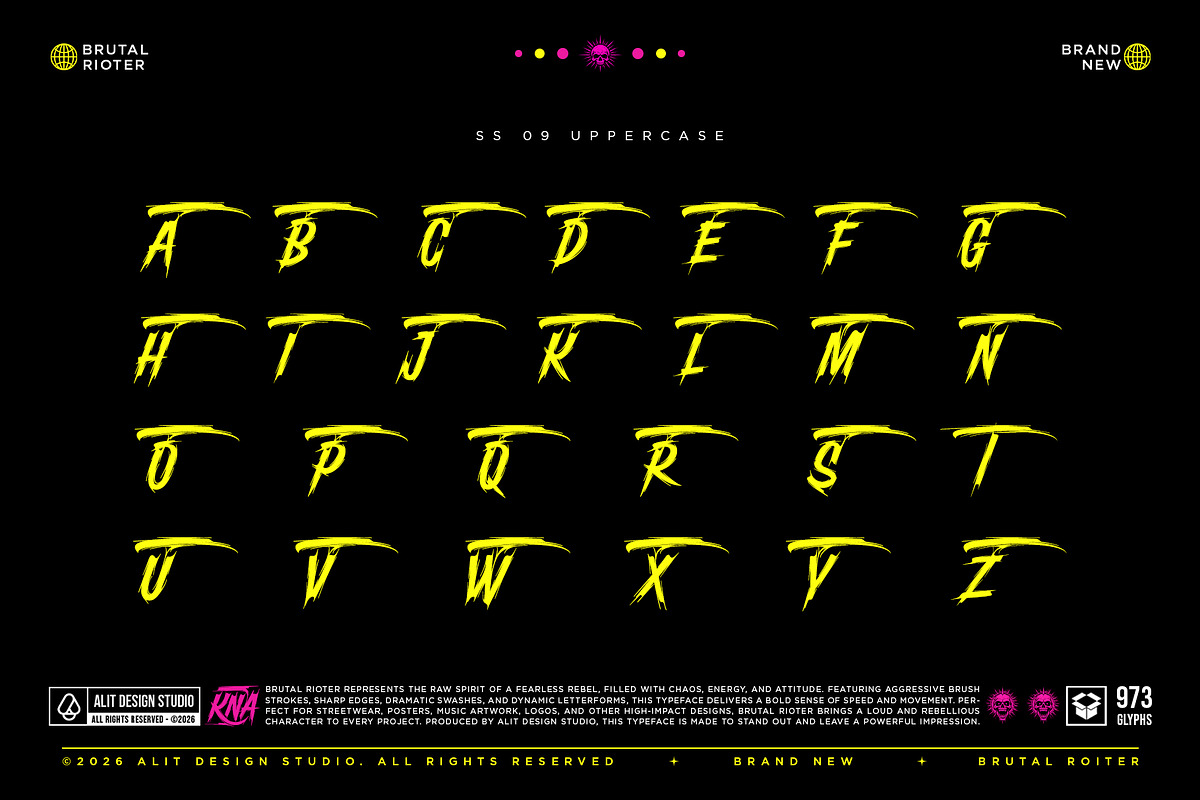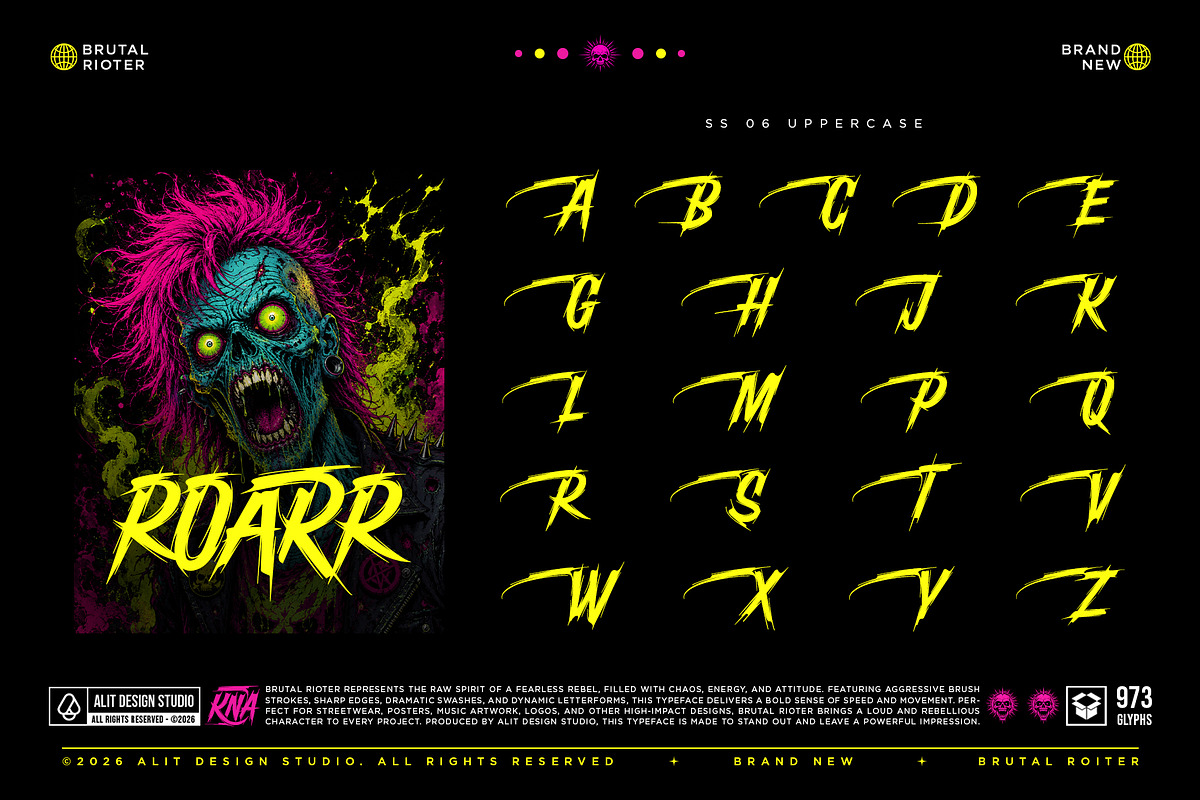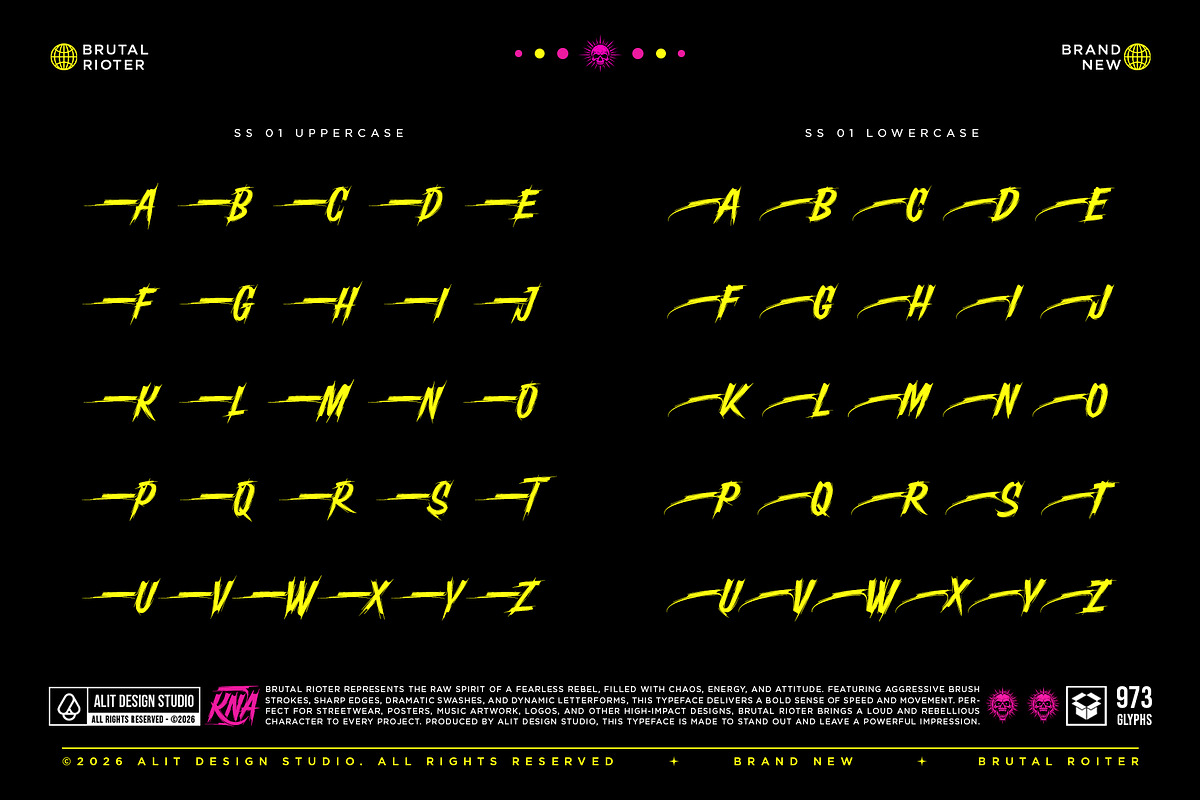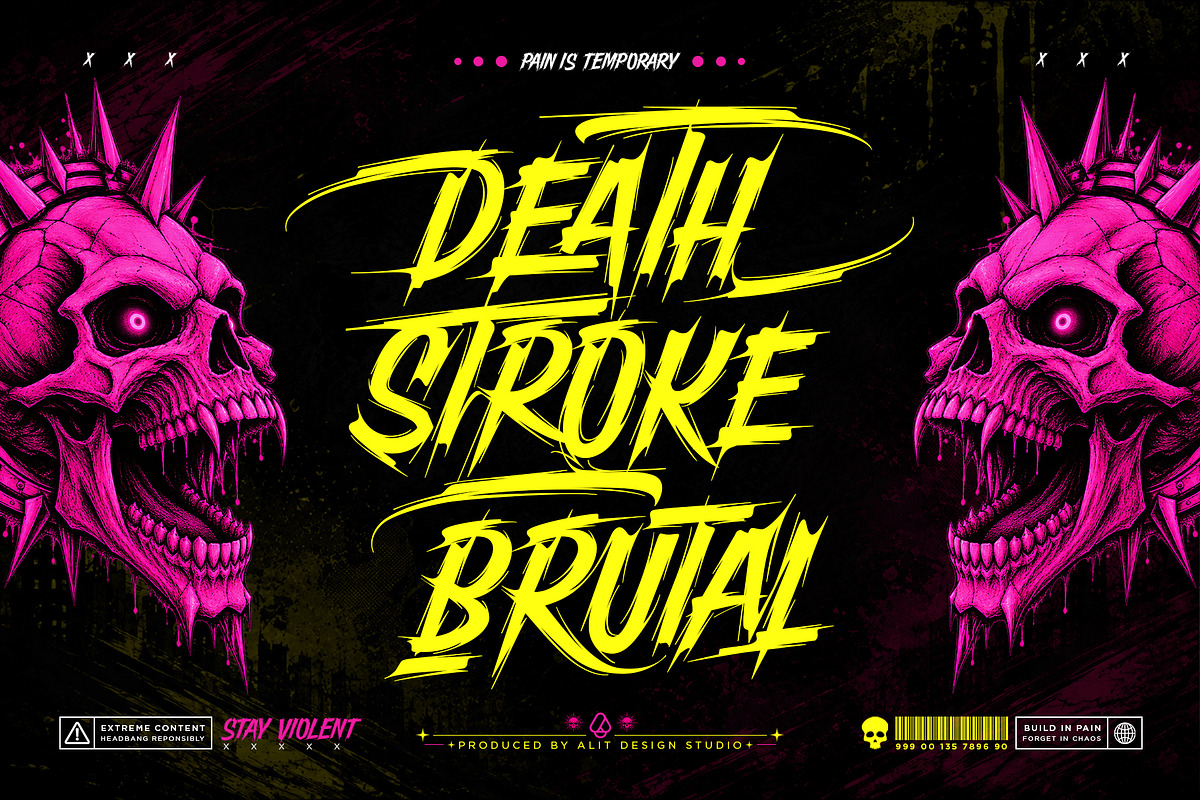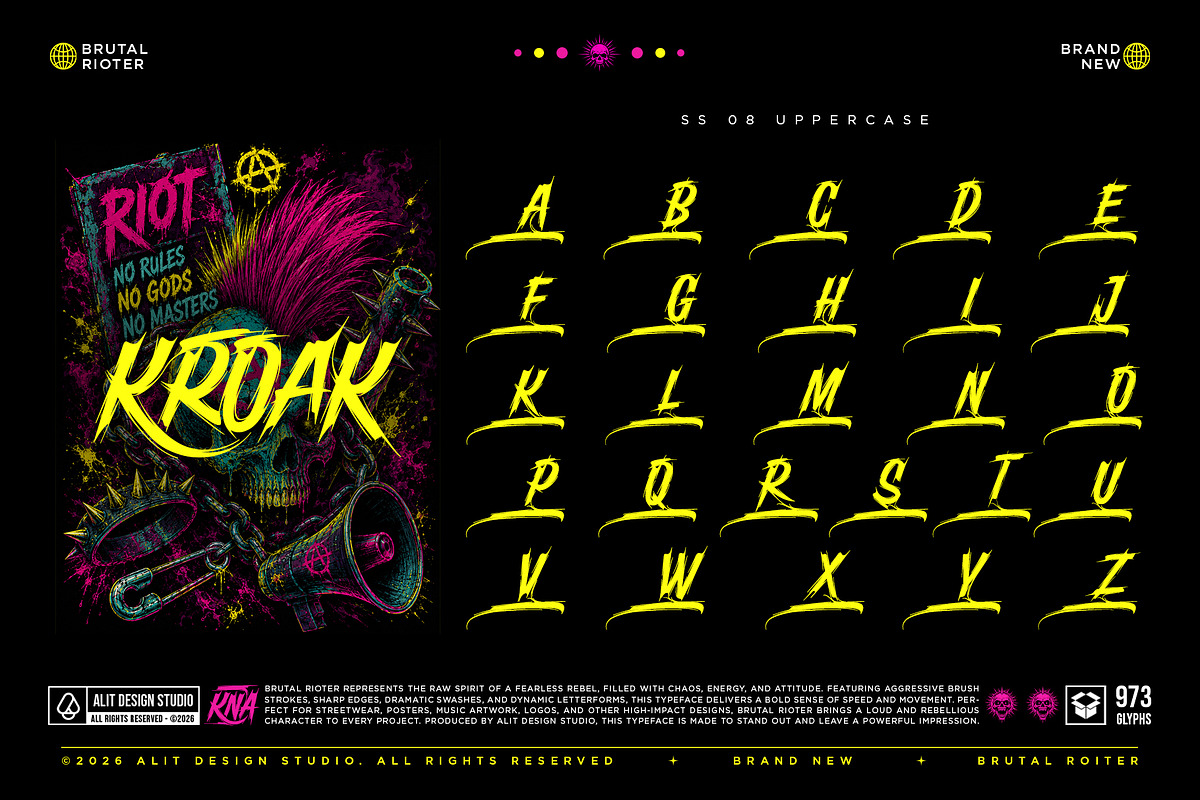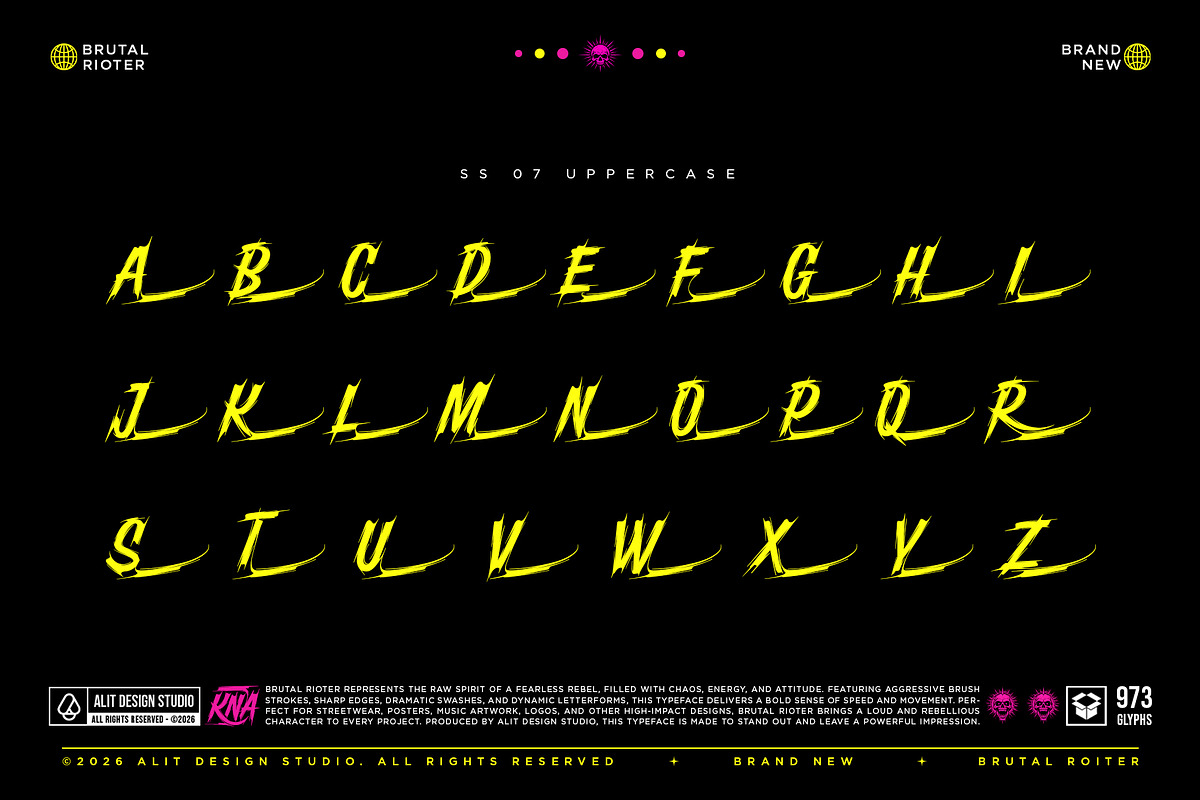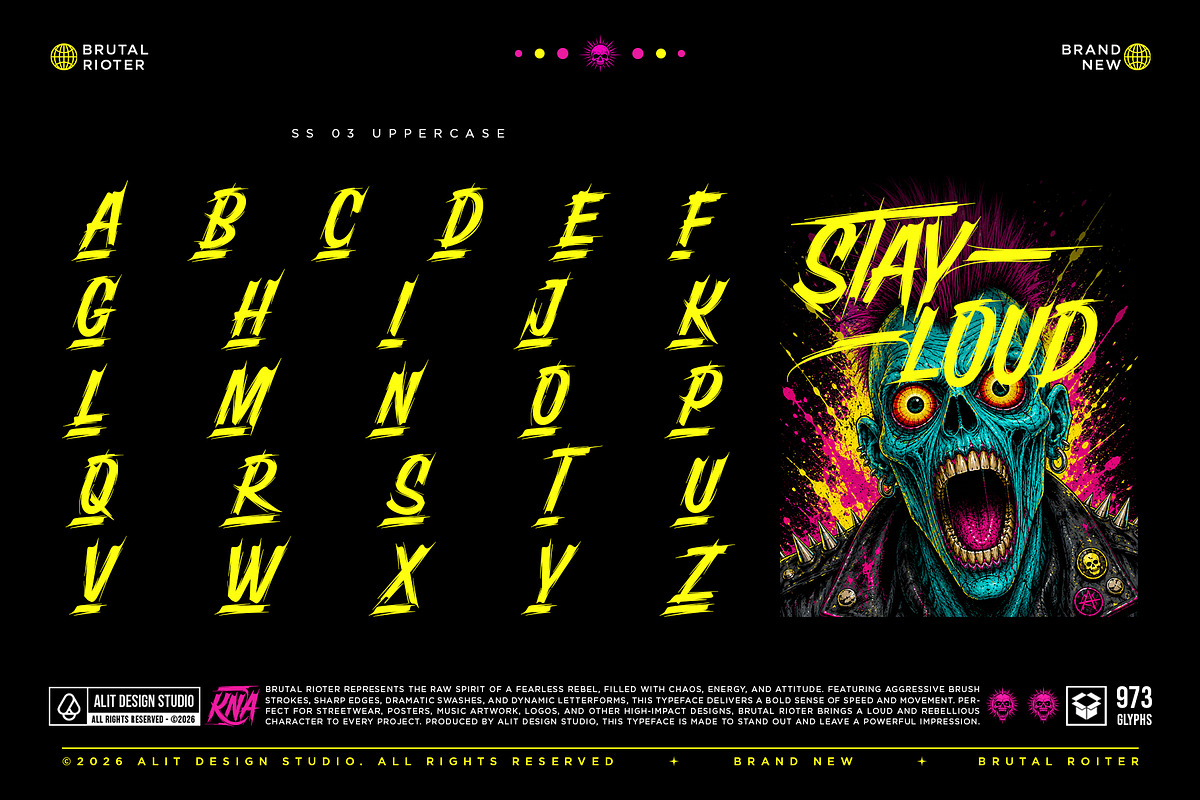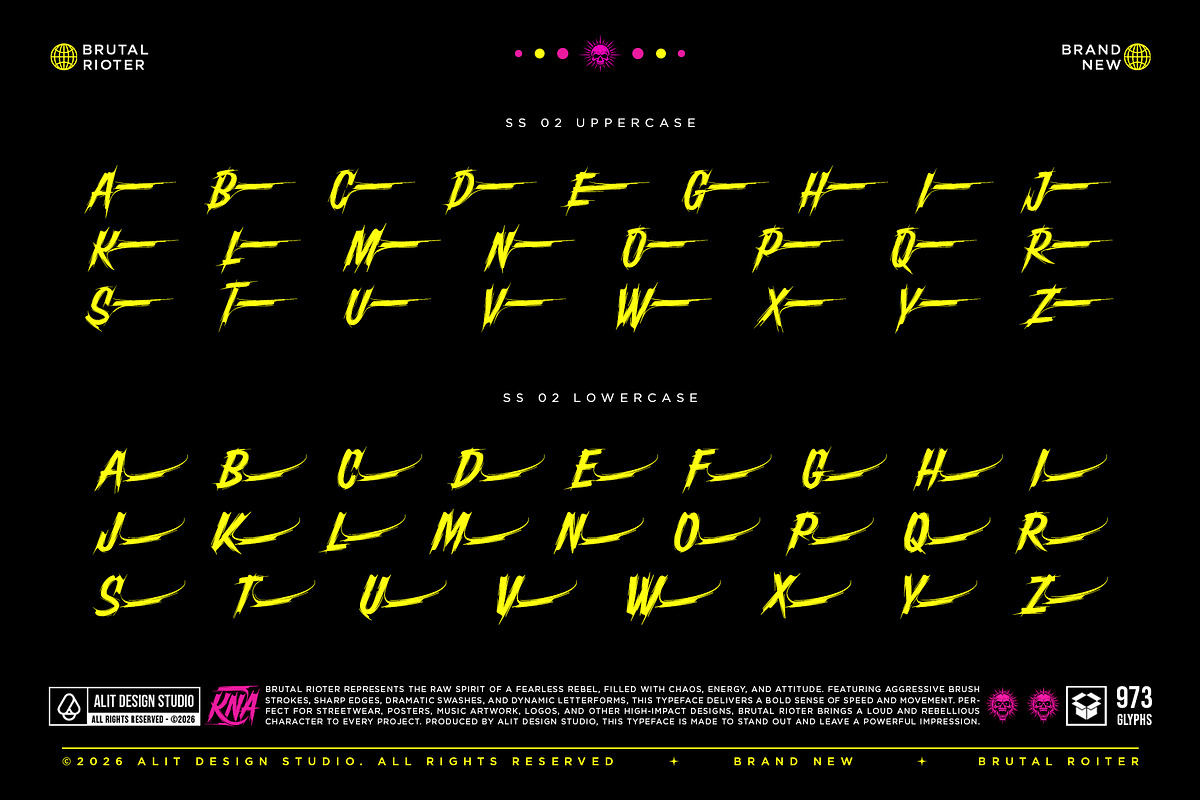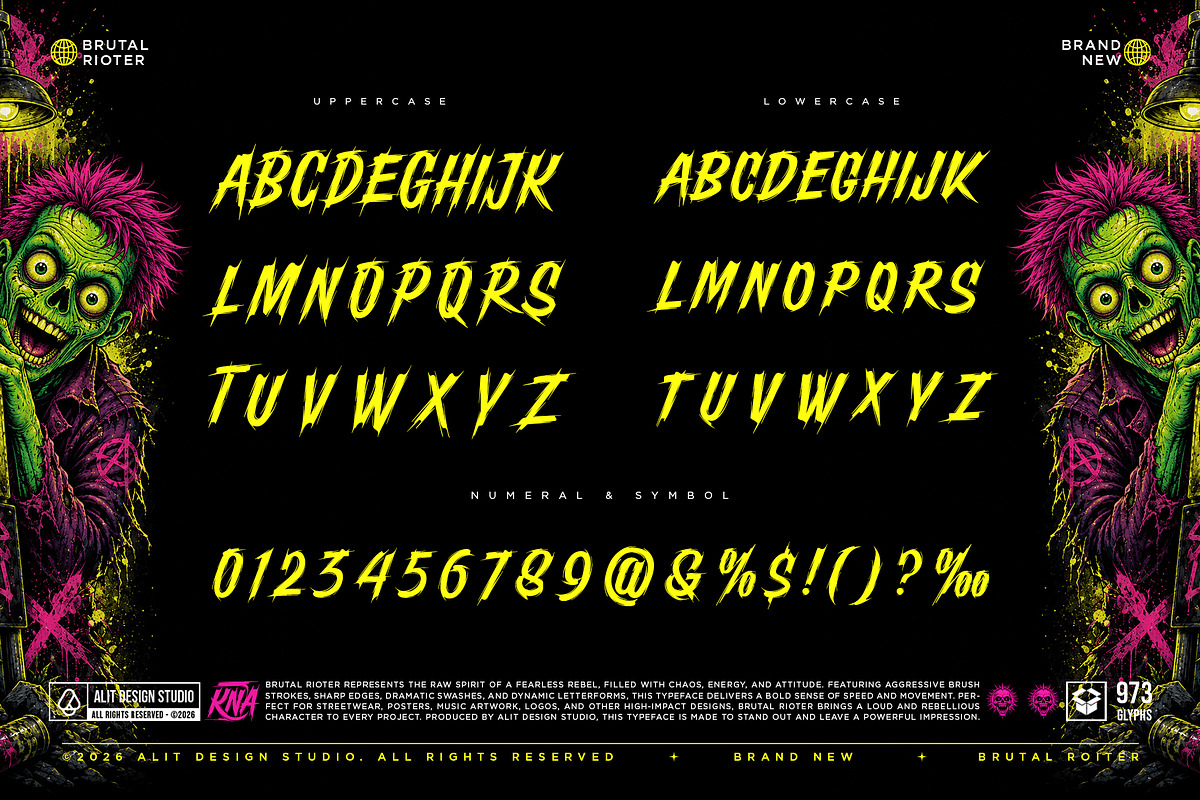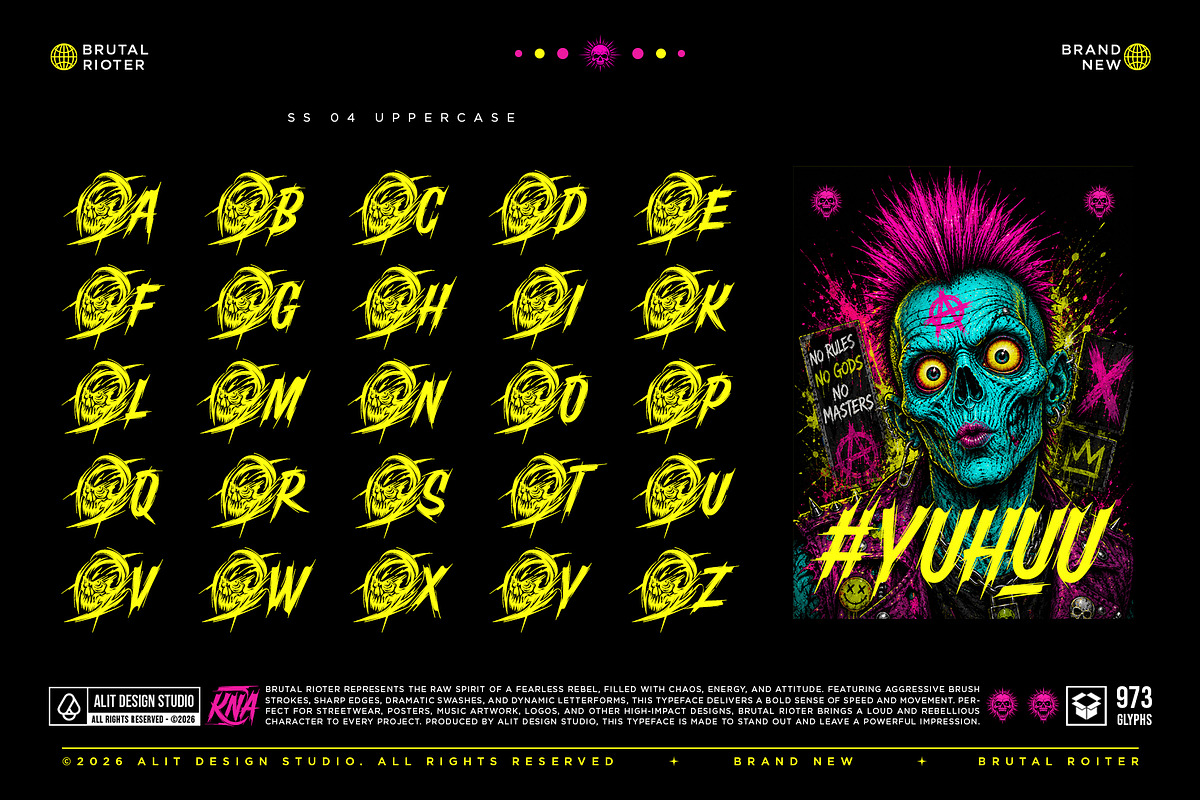
Brutal Rioter Typeface
Brutal Rioter represents the raw spirit of a fearless rebel [Brutal Rioter 1.jpg]. Produced by Alit Design Studio, this aggressive brush typeface is saturated with chaos, energy, and an unapologetic attitude [Brutal Rioter 1.jpg]. Defined by its rapid brush strokes, razor-sharp edges, and dynamic letterforms, the font delivers a bold, visceral sense of speed and movement [Brutal Rioter 1.jpg]. It is meticulously crafted for designers who need their typography to scream rather than whisper, ensuring your project stands out and leaves a powerful, lasting impression.
Ideal Applications:
Because of its high-impact, gritty aesthetic, Brutal Rioter thrives in edgy and extreme design environments. It is the ultimate typographic tool for:
Music & Entertainment: Underground hardcore punk festival flyers, heavy metal album covers, and chaotic band merchandise.
Horror & Cinema: Dark, psychological horror movie posters and thriller title cards .
Fashion & Apparel: Urban streetwear graphics, skate brand logos, and rebellious clothing lines.
Branding & Packaging: High-energy energy drink labels, extreme sports branding, and bold logo design.
Comprehensive Typographic Features:
Beneath its chaotic surface, Brutal Rioter is a highly versatile and technically robust font, offering massive customization options for professional designers:
Massive Glyph Library: Contains an impressive 974 individual glyphs, providing endless combinations and creative freedom.
Stylistic Alternates (SS01 - SS09): Features nine comprehensive stylistic sets. This allows you to swap out standard letters for wildly different, aggressive brush variations, ensuring no two words look exactly the same.
Extensive Custom Ligatures: Packed with a massive library of ligatures (such as double letters and common pairings) that seamlessly interact with each other. This guarantees a natural, overlapping, hand-painted look rather than a repetitive digital footprint.
Dynamic Swashes: Includes dedicated, sweeping brush swashes to dramatically underline text, anchor your logos, or add finishing aggressive strokes to your artwork.
Complete Core Set: Fully equipped with standard uppercase and lowercase alphabets, numerals, punctuation, and a wide array of symbols.
Multilingual Support: Engineered with diverse character accents to support multiple languages for global brand campaigns..